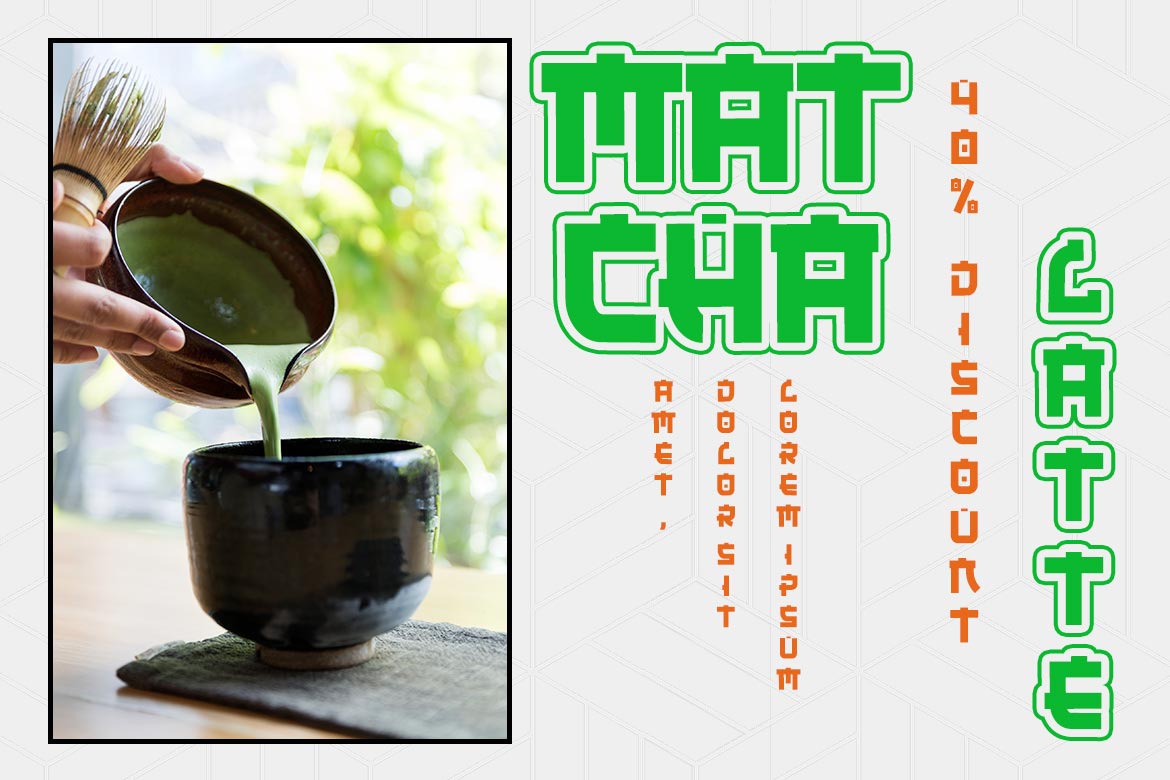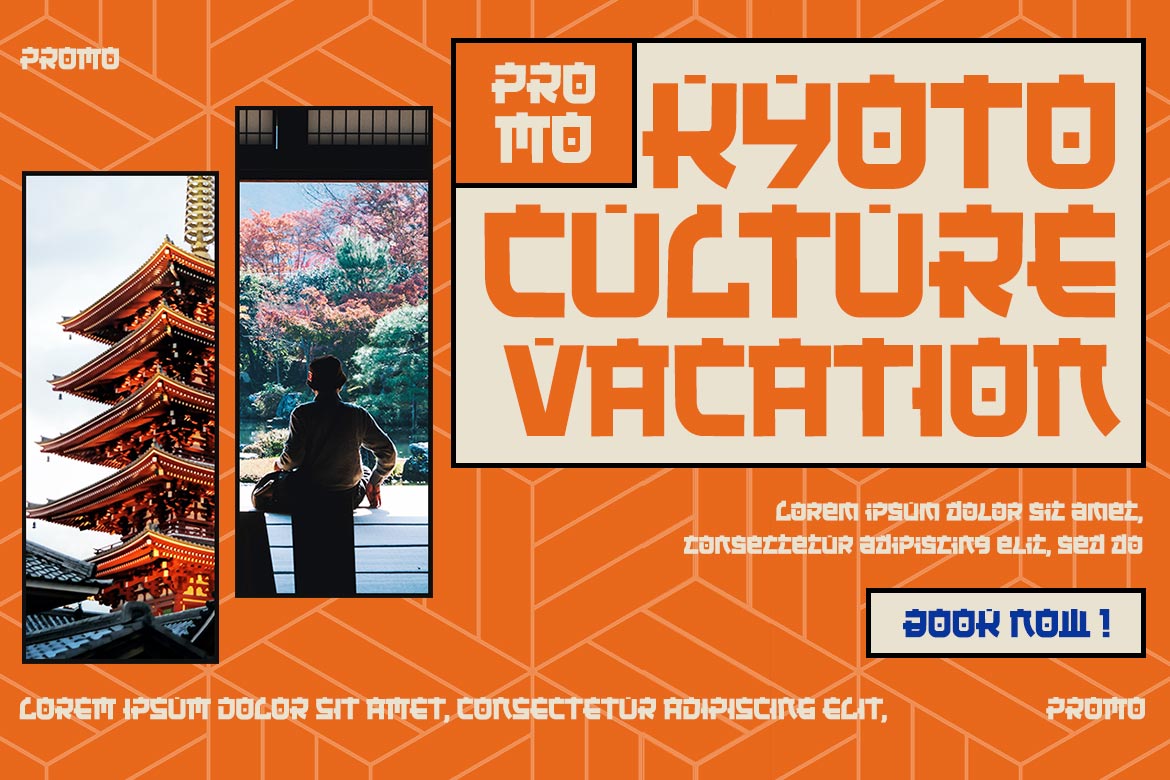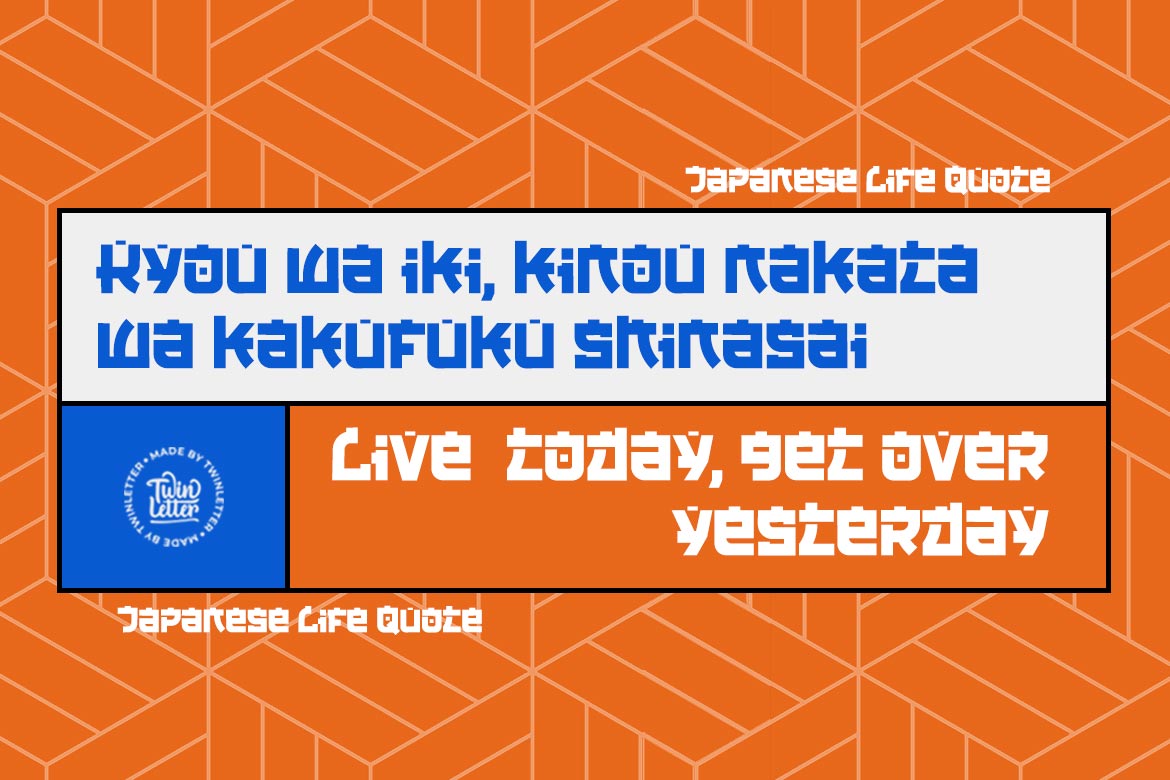
KAWARA Font
KAWARA Display Font
This is a display font with a Japanese theme or an Asian font to fulfill the needs of your project with a Japanese theme, but it’s impossible to use an authentic Japanese font because not everyone understands Japanese letters, therefore we present this font as an intermediate alternative.
To make your project gorgeous, strong, and bold, we produced this font with the most unique shape imaginable. So, what are you waiting for? Use this font to realize your ambition of having a wonderful project.
Logotypes, food banners, branding, brochure, posters, movie titles, book titles, quotes, and more may all benefit from this font.